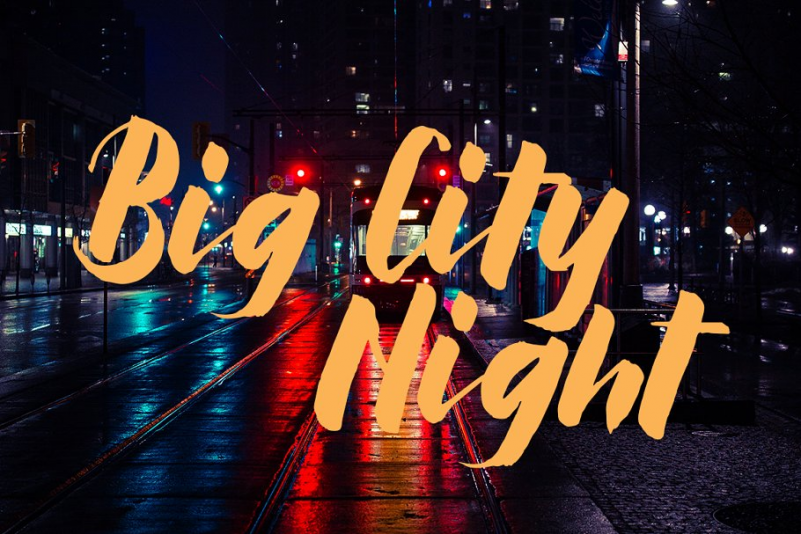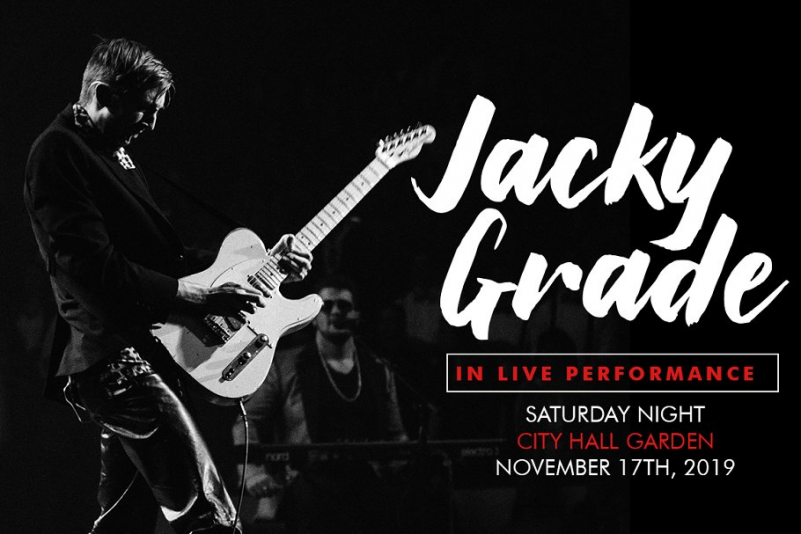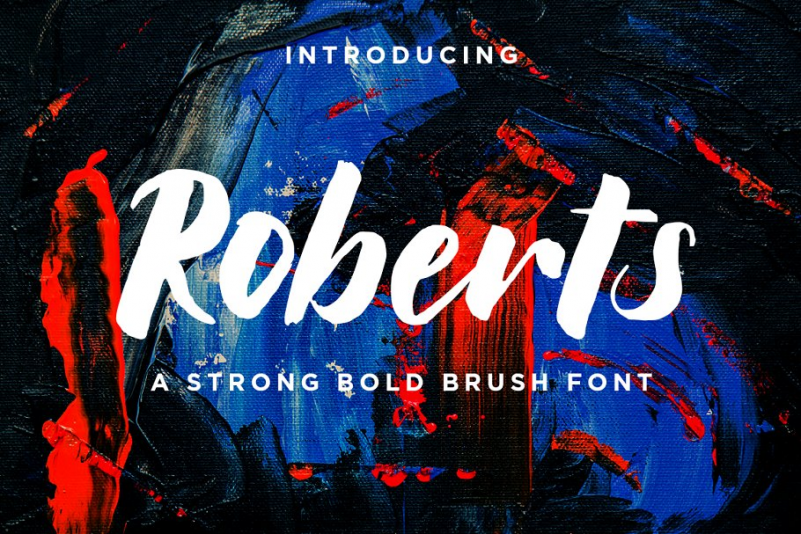
Roberts Font
Roberts is brush bold script with natural texture feel hand written.
I design it with real write my hand, I really hope you will enjoy it so much when using this font. I love using this one with layer masks in Photoshop, illustrator or corel draw because really look natural written.